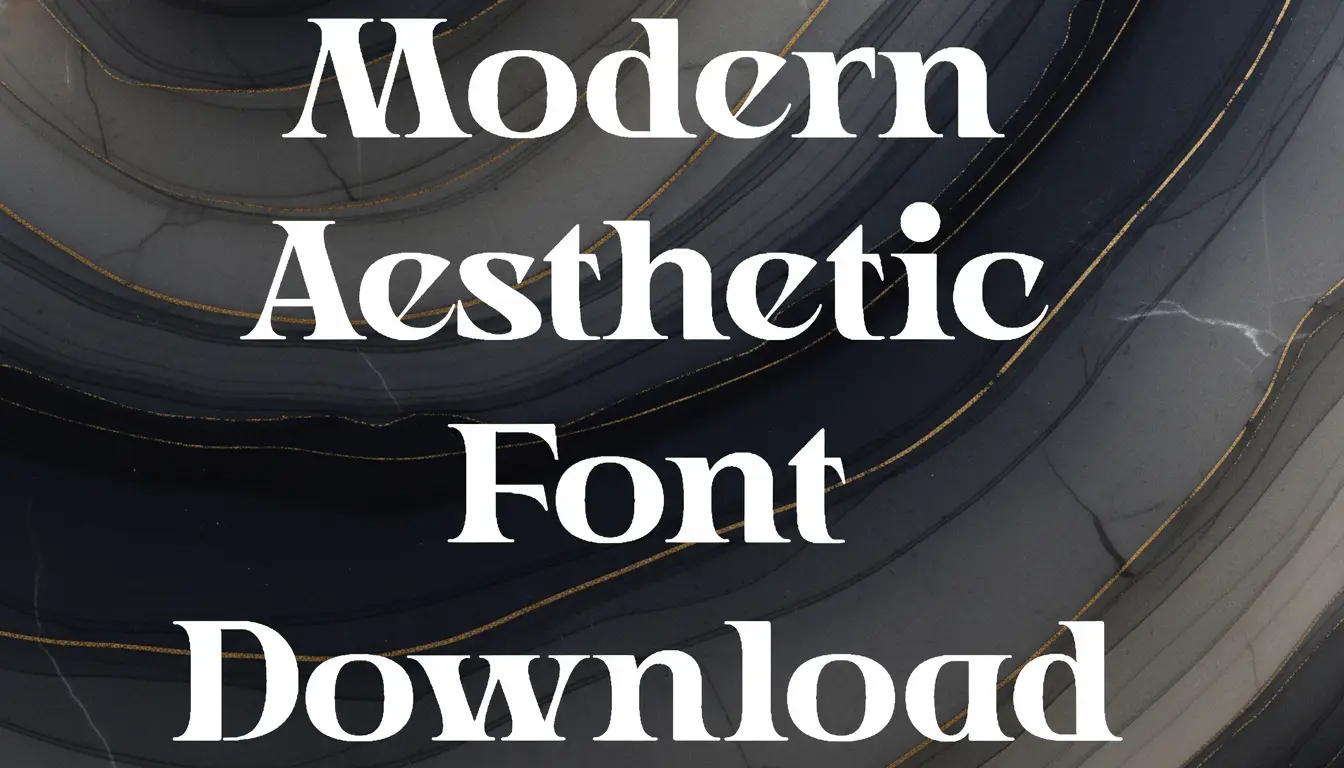
Modern Aesthetic Font
Modern Aesthetic Font Preview
Modern Aesthetic is a fancy font designed by Sigit Dwipa Raharjo and published by Nirmana Visual. Bold and full of character, it's built to stand out rather than blend in. You can download it for free and test it with your own words in the preview above.
- Designer: Sigit Dwipa Raharjo
- Publisher: Nirmana Visual
- Characters: A–Z, a–z and basic punctuation
What You Can Type With Modern Aesthetic
Modern Aesthetic has the full alphabet in upper and lowercase. There are no numbers, so you'll need a second font for dates, prices or phone numbers. Common punctuation such as &, !, ? and @ is included as well. It also has the accented letters you need for Spanish, French, German, Portuguese and Italian.
Where Modern Aesthetic Works Best
Modern Aesthetic is a natural fit for posters, logos and eye-catching headlines. Use it for one standout word or headline and let simpler fonts handle the rest.
Does Modern Aesthetic support accented letters?
Yes. Modern Aesthetic includes the accented letters needed for Spanish, French, German, Portuguese and Italian, so it works for more than just English.